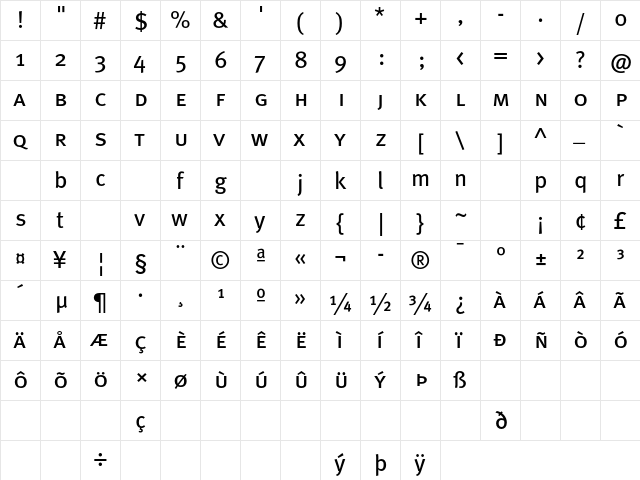
FF Mt Bk
| Foundry | FSI Fonts und Software GmbH |
| Designer | Erik Spiekermann |
Design Context for FF Mt Typeface
FF Mt offers clean, dependable letterforms without strong stylistic allegiance, making it a practical choice for designers who need flexibility.